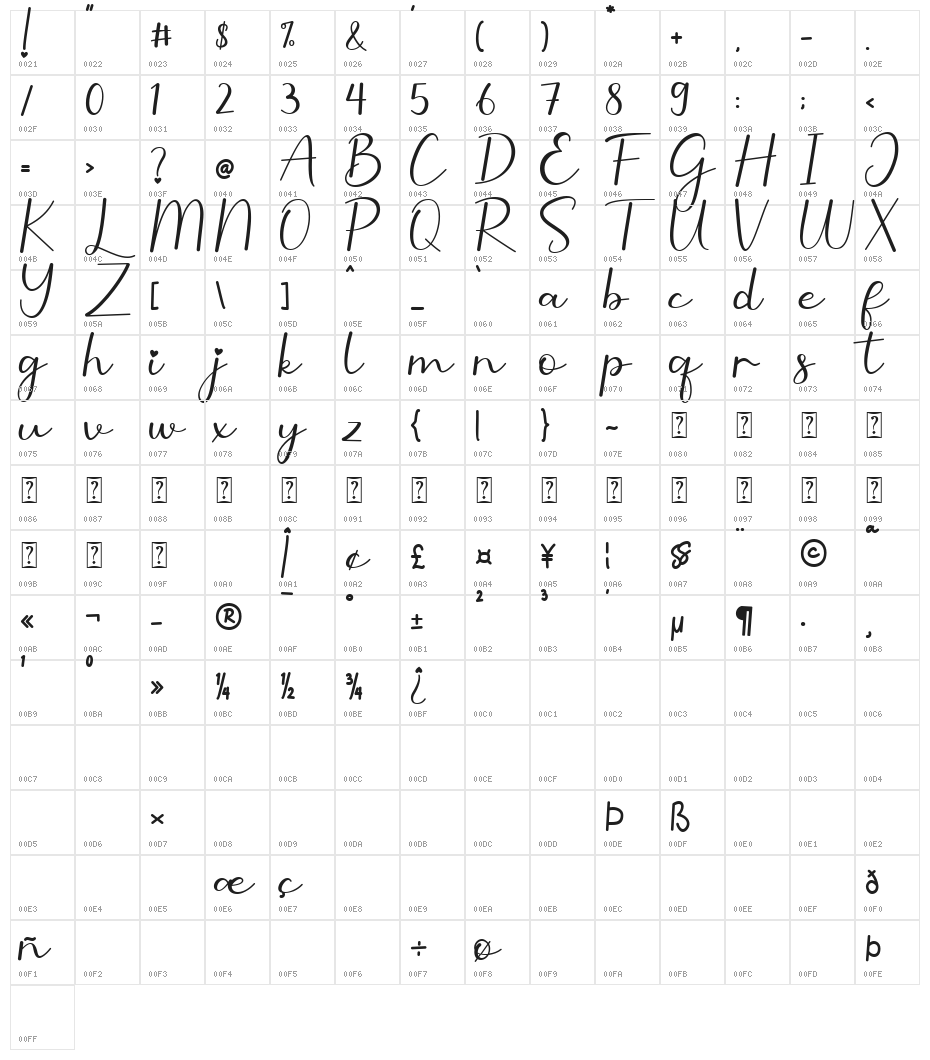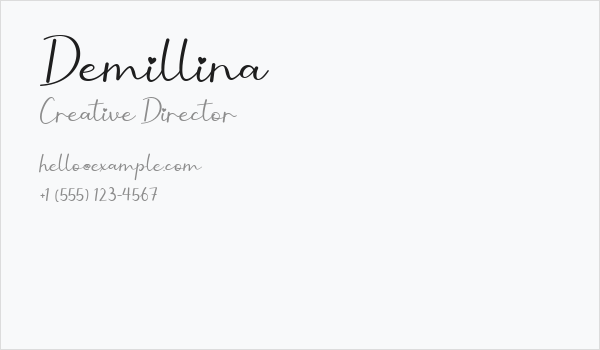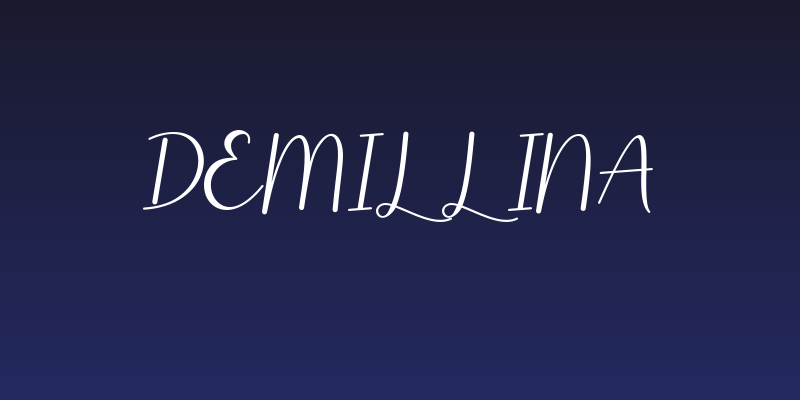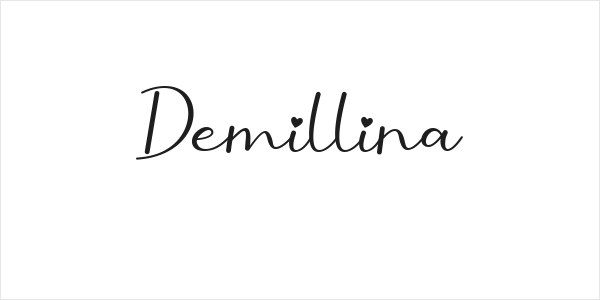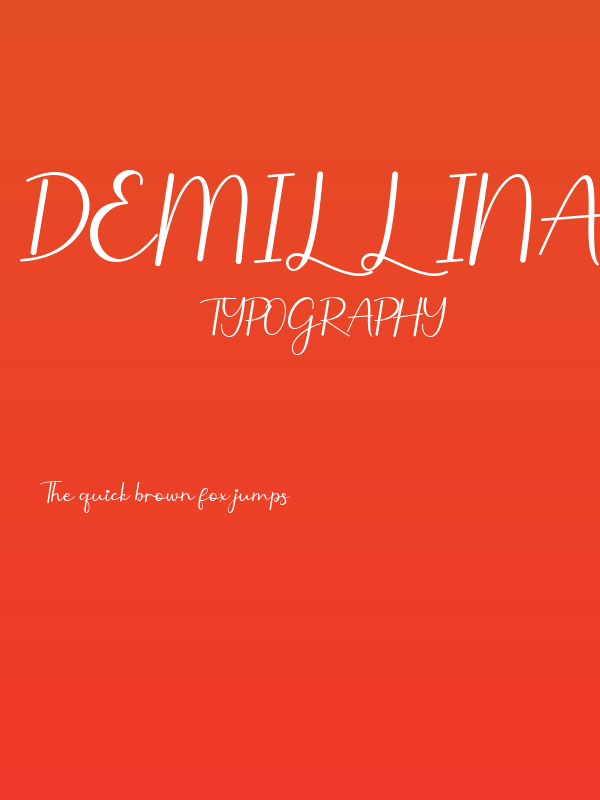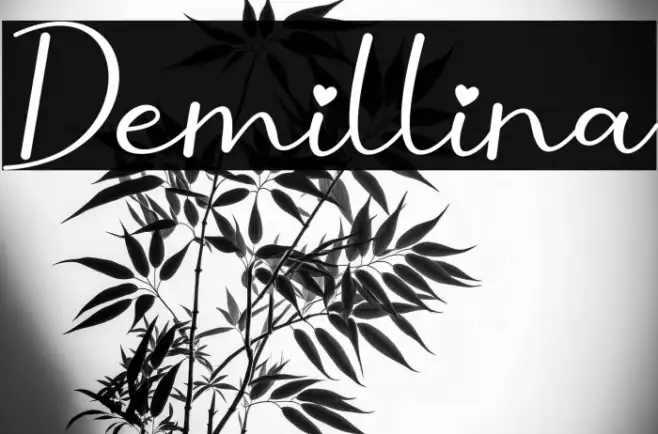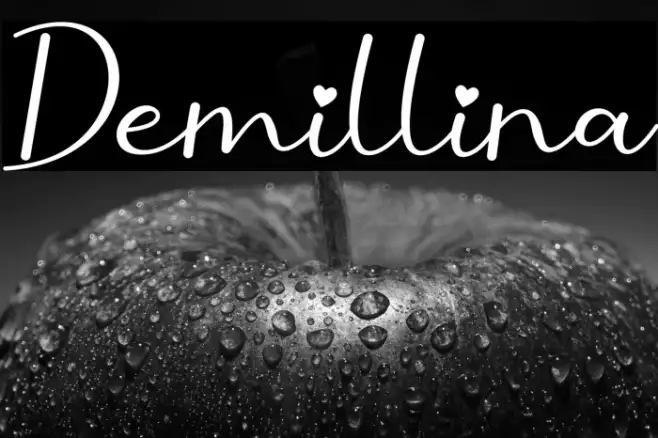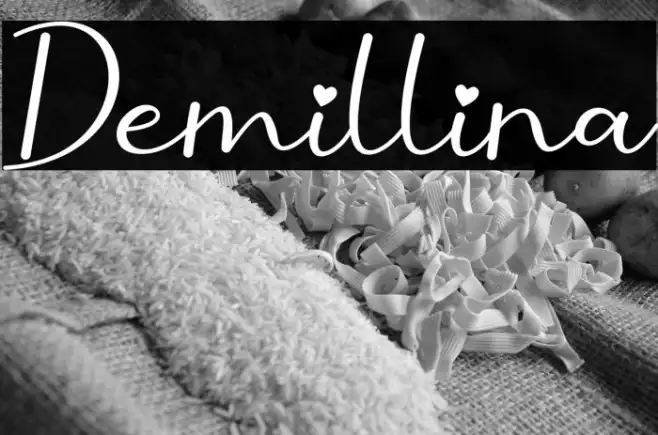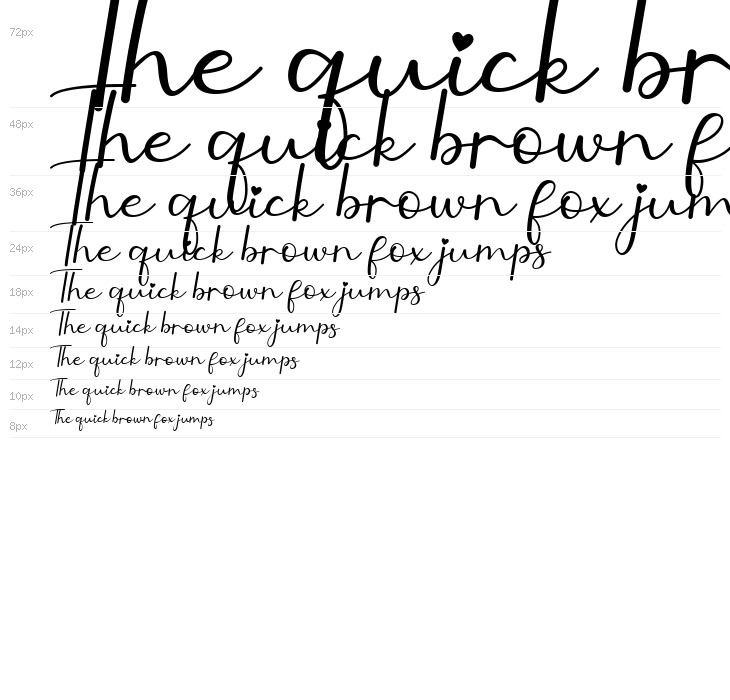
Demillina Font
Demillina Description
This font exudes a playful and elegant handwritten style, characterized by its flowing and connected script. The uppercase letters maintain a consistent height with a slight slant, giving them a dynamic appearance. Lowercase letters are more rounded and feature charming embellishments, such as the heart-shaped dots on the 'i' and 'j'. The numerals are clear and legible, with a slight variation in stroke width that adds to the font's whimsical nature. Special characters are thoughtfully designed to match the overall aesthetic, making this font versatile for various creative projects.